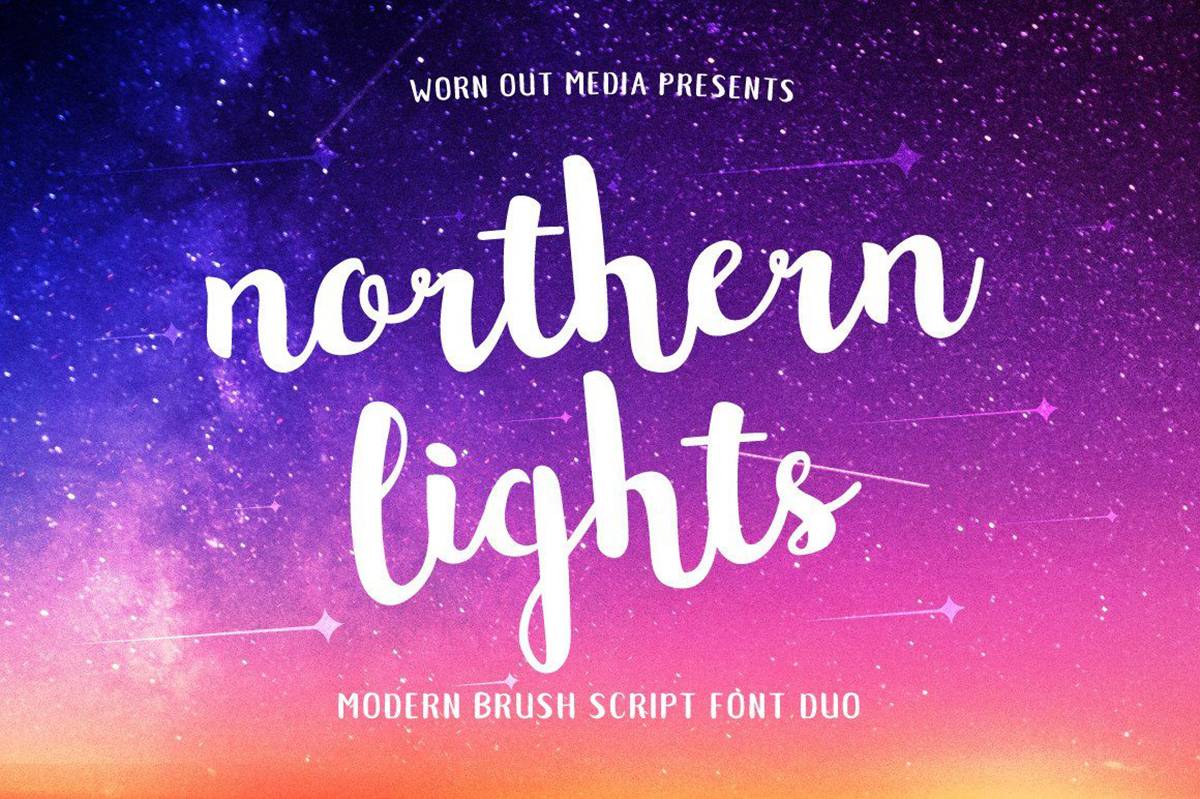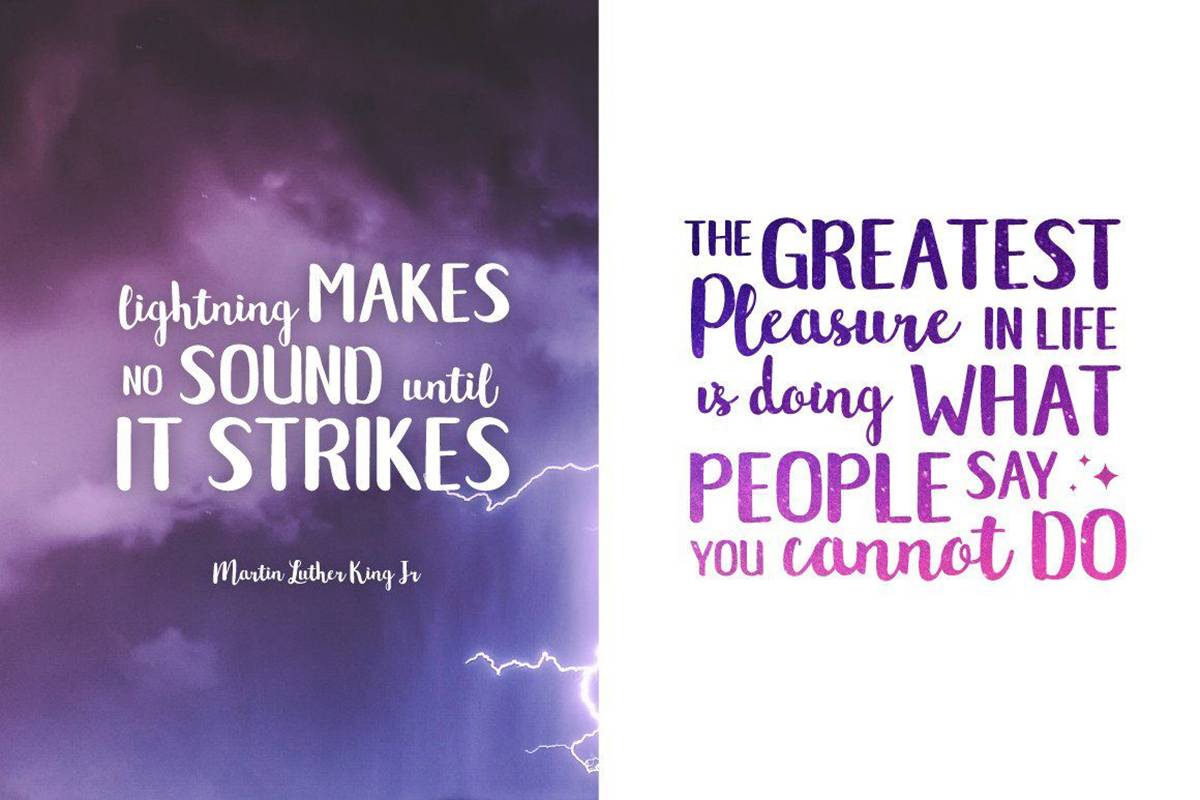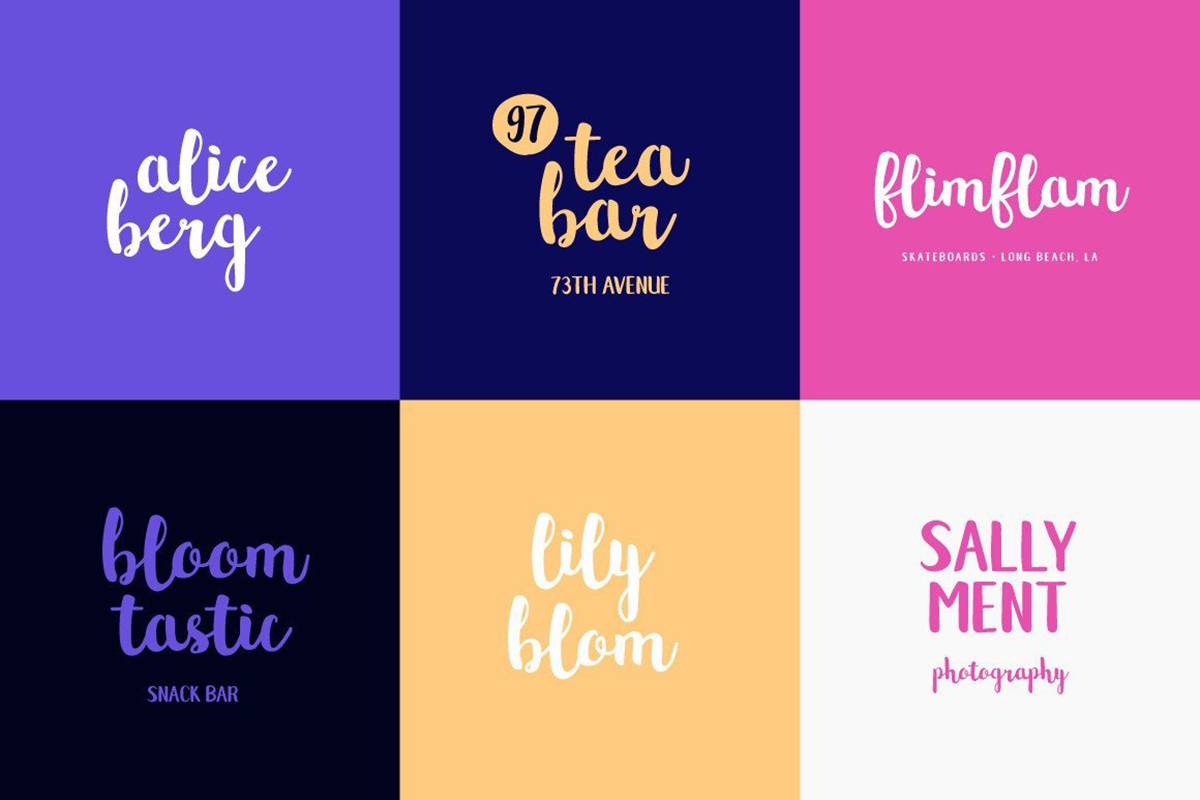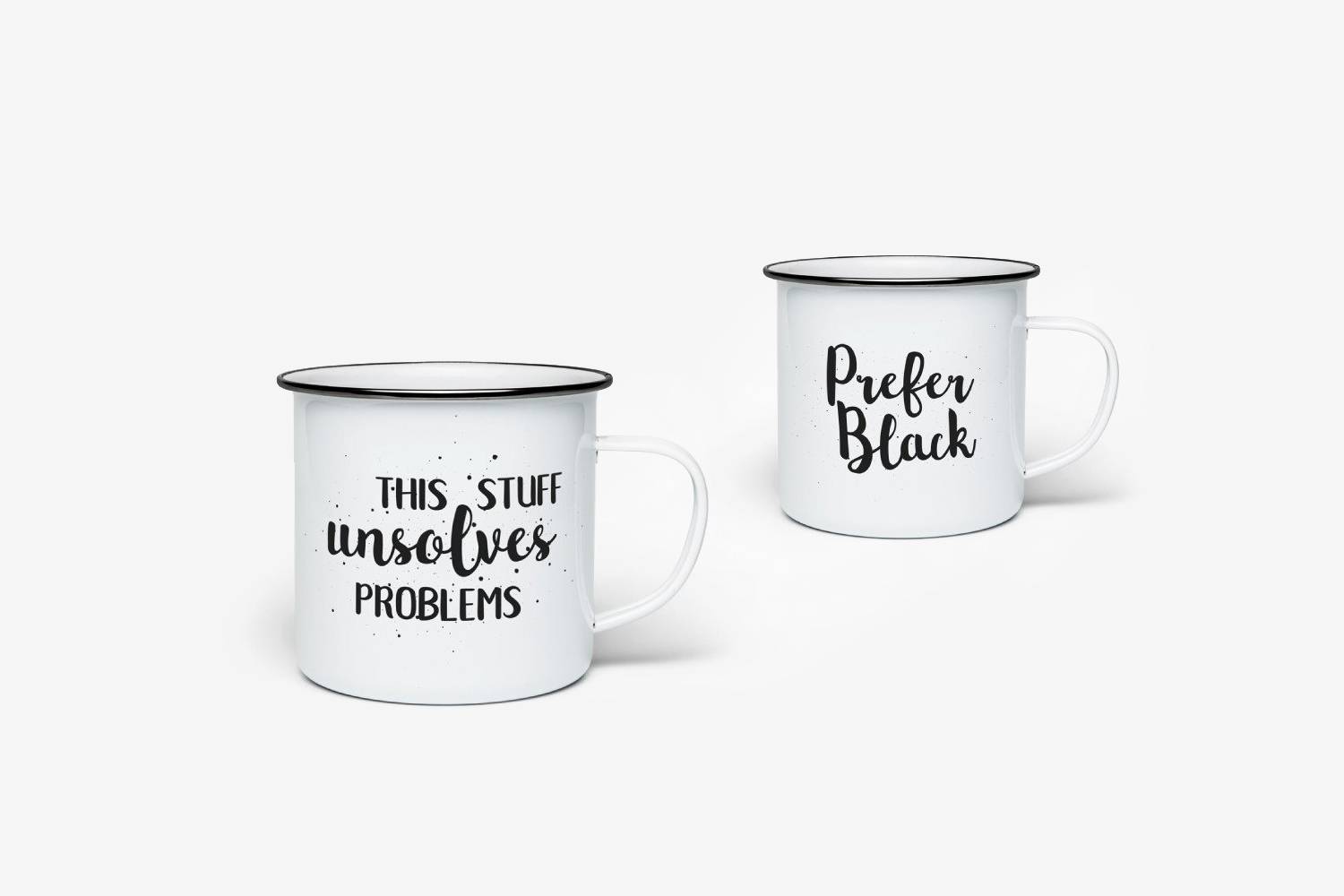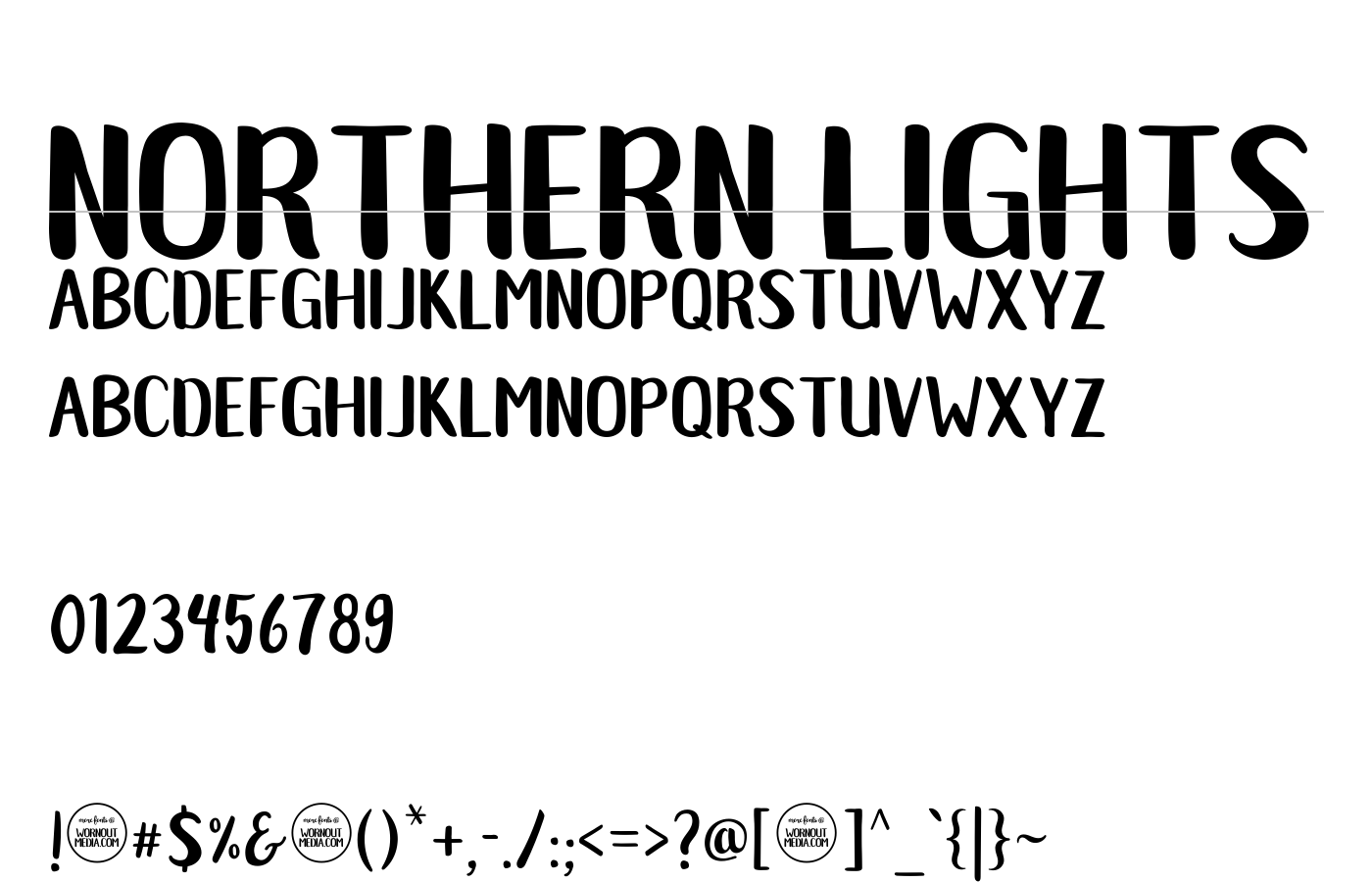
Northern Lights Font Duo is a charming and playful sans serif typeface featuring tall, slightly uneven letterforms that evoke a hand-drawn, casual feel. Its high x-height and moderate contrast lend excellent readability while maintaining a whimsical and friendly personality, perfect for creative projects, children’s content, and informal branding. This font duo works well in headlines, logos, and packaging where a warm, approachable style is desired.
Northern Lights Font Duo
About Northern Lights Font Duo
| Font family | Northern Lights Font Duo |
| Release date | 2016-09-06 |
| Designer | Mats-Peter Forss / Worn Out Media |